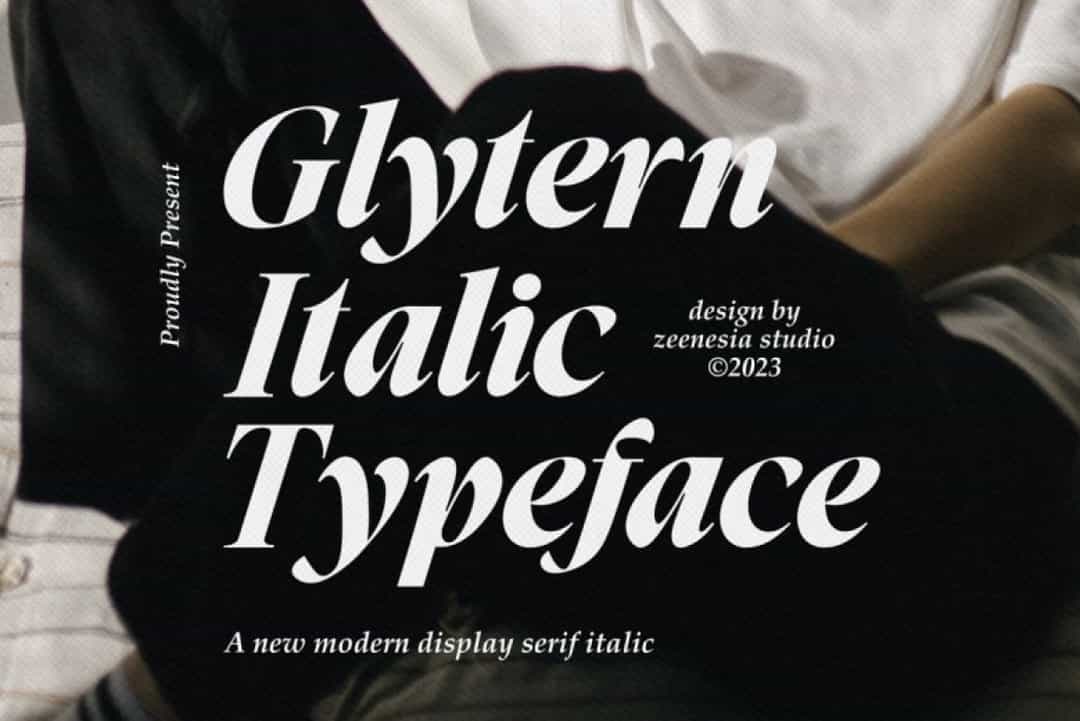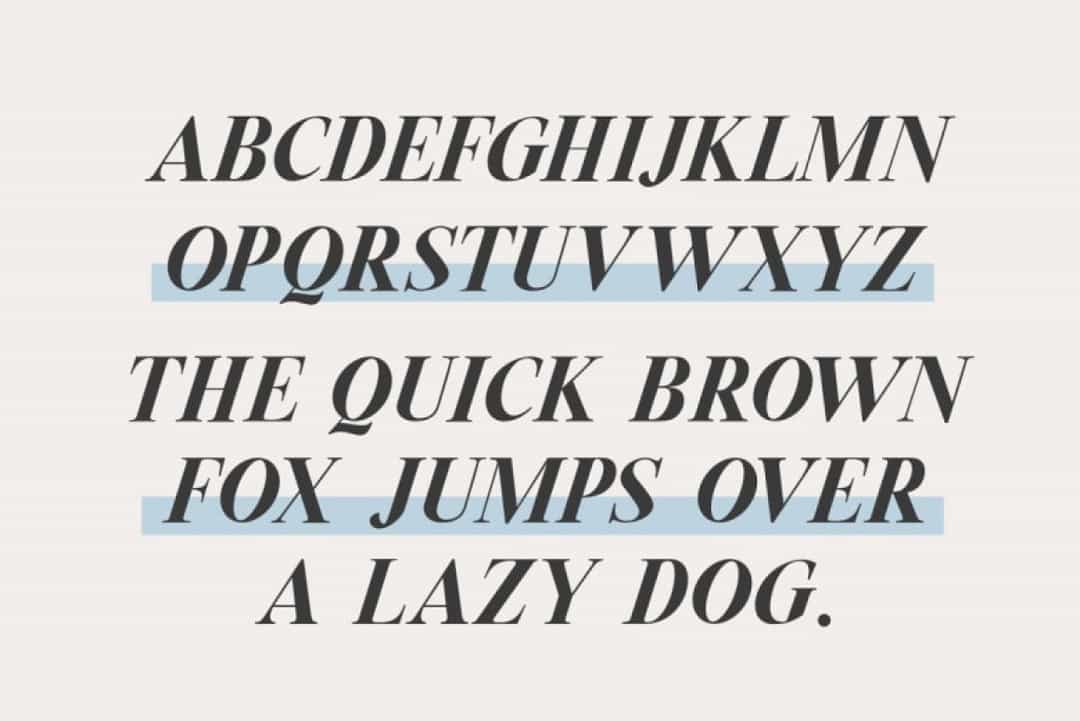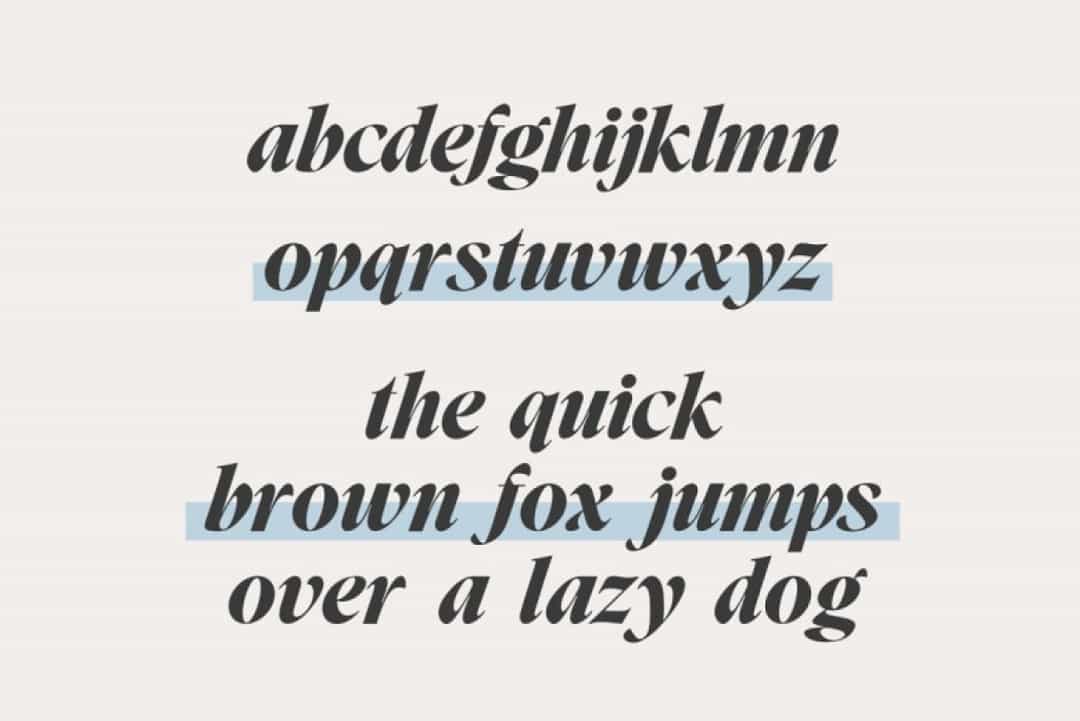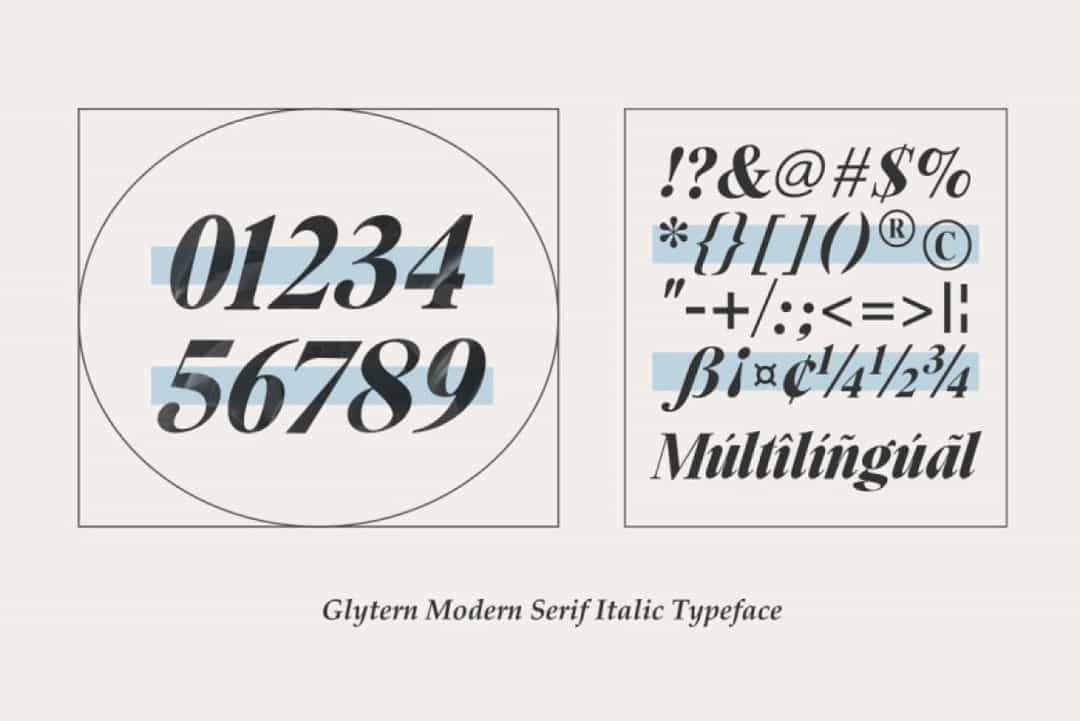
Glytern is a modern italic serif typeface designed for large sizes. This adaptable font makes Glytern perfect for editorial projects such as logo design Web font branding products magazines packaging or creating beautiful text overlays on images as a beautiful text overlays.